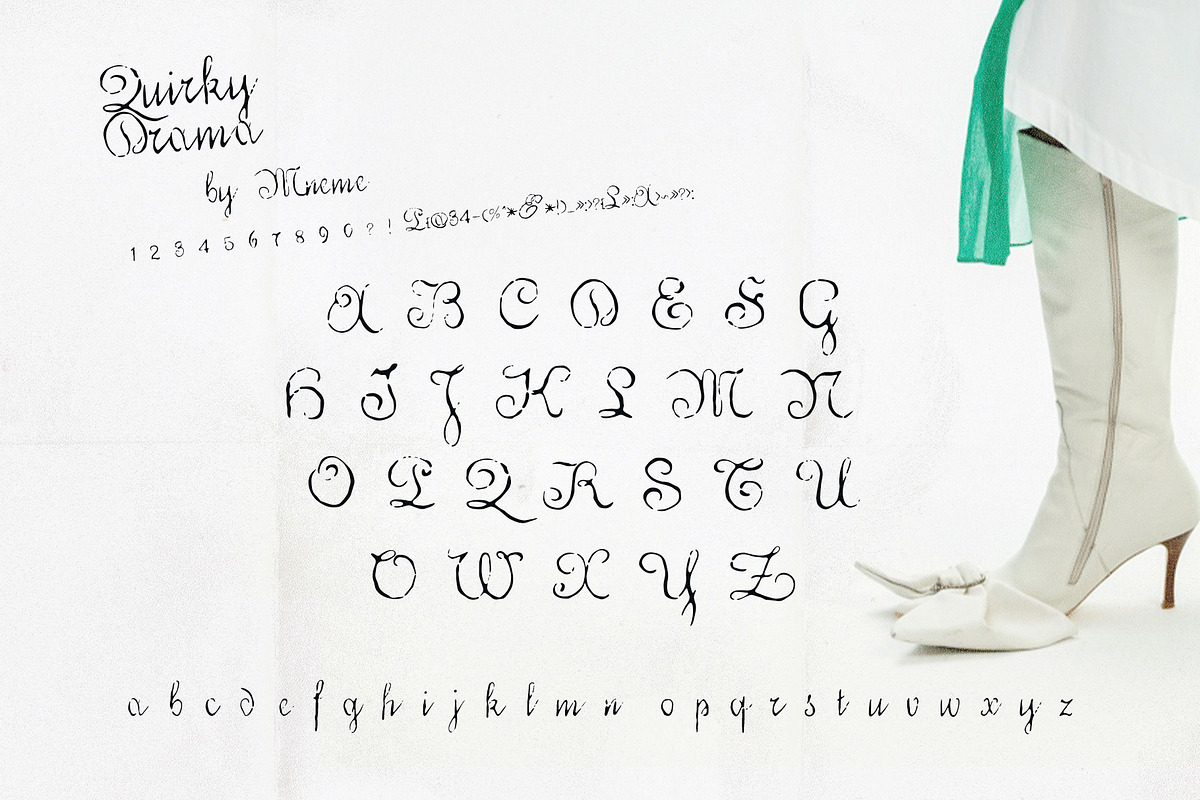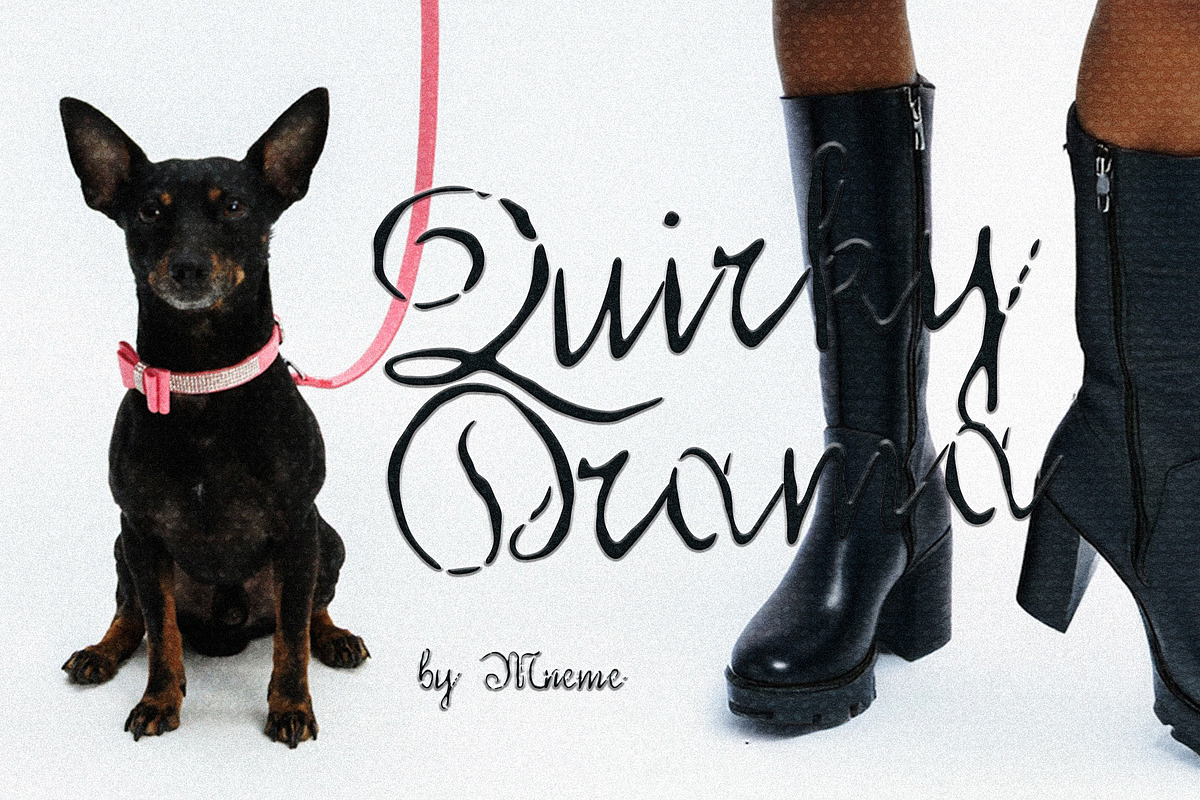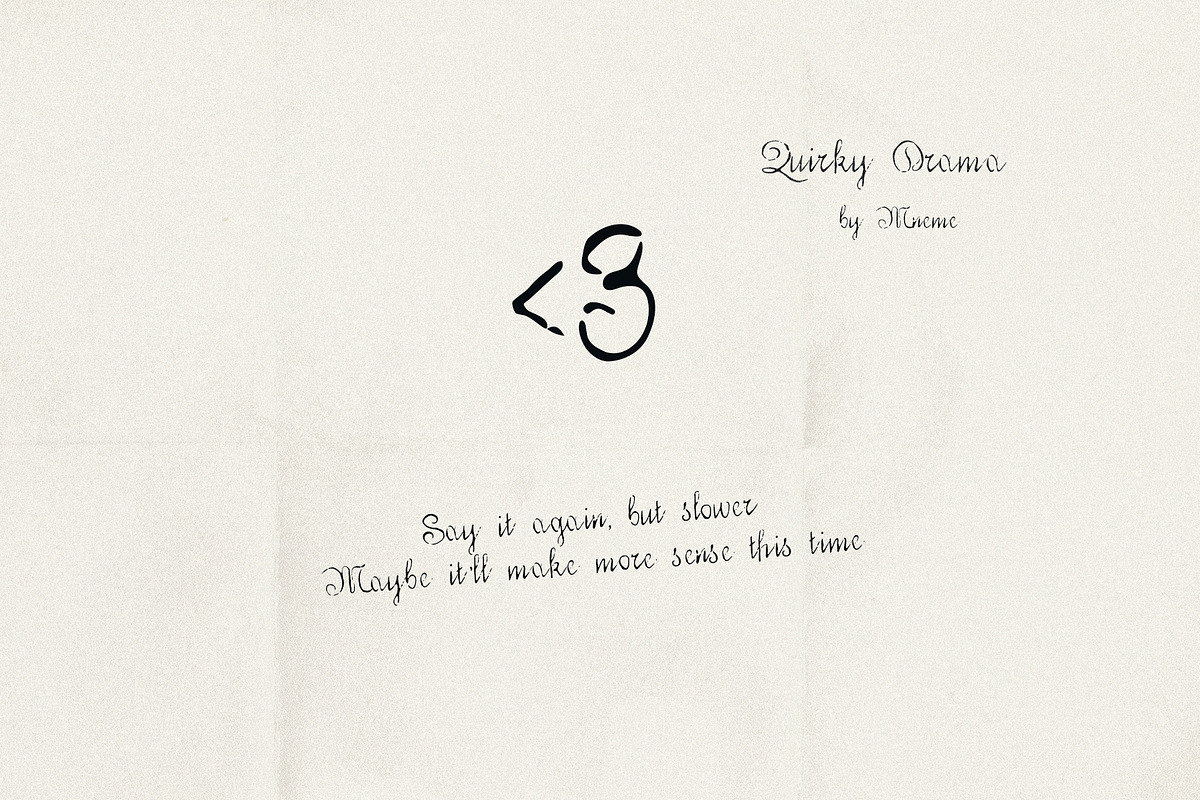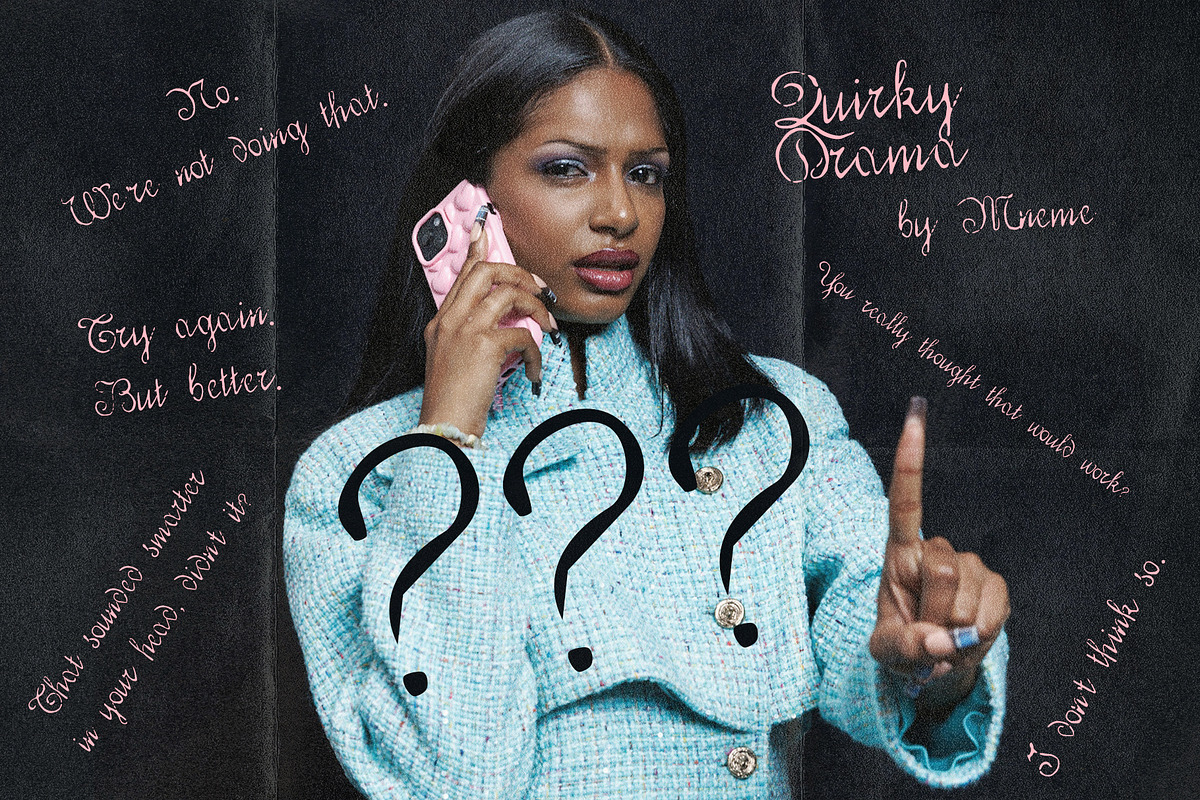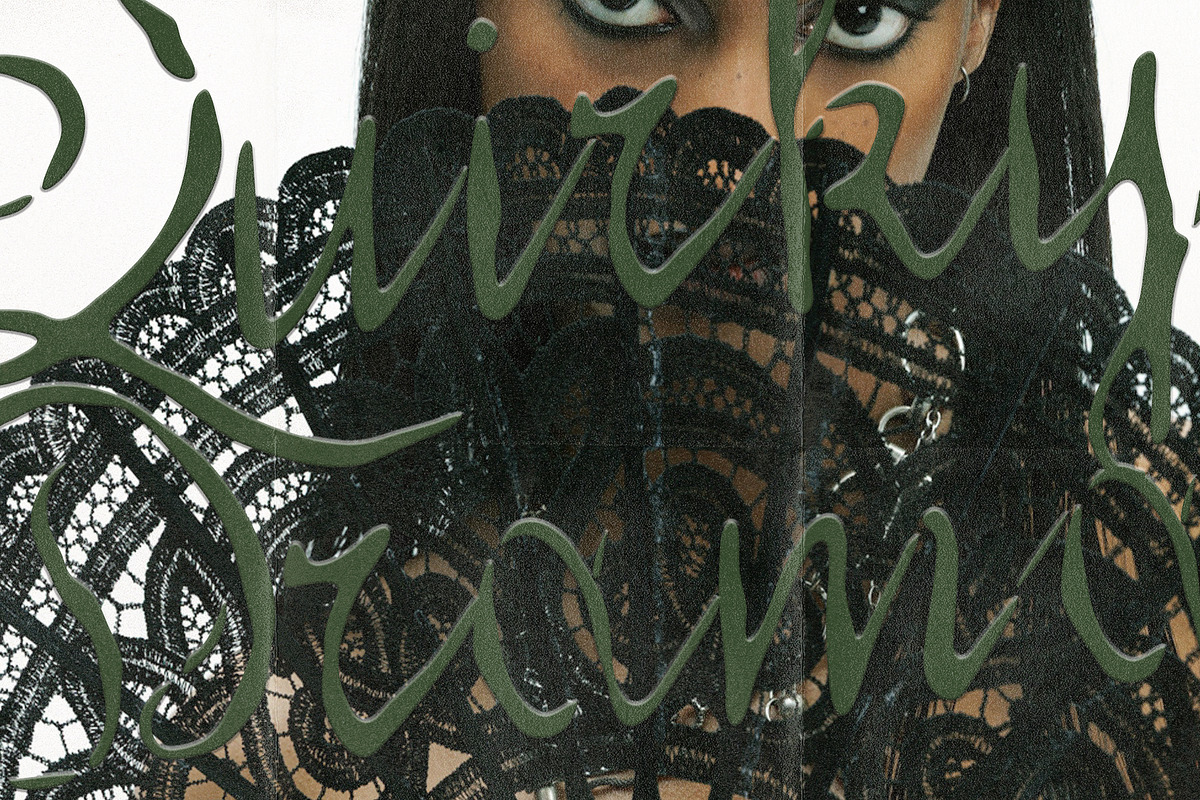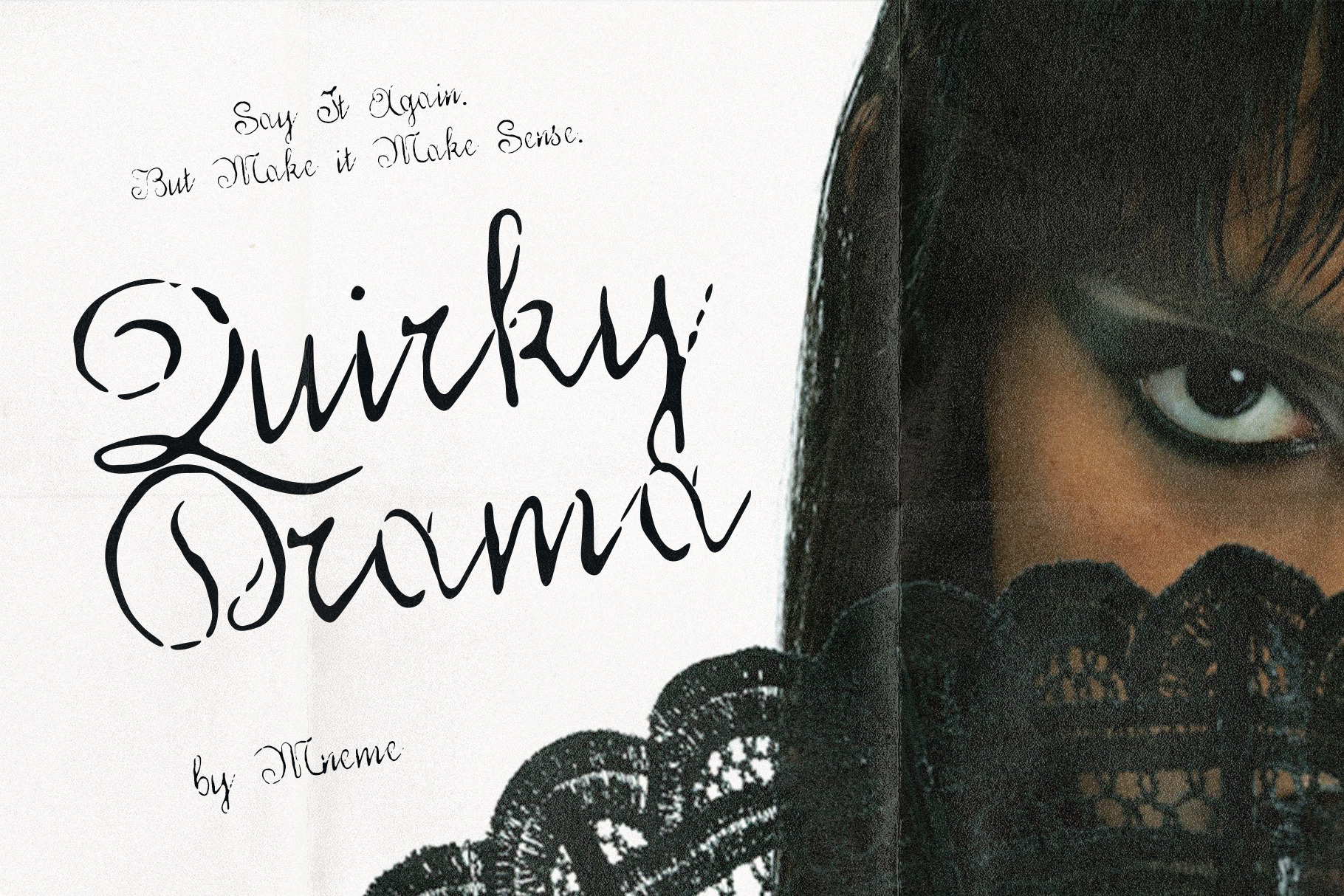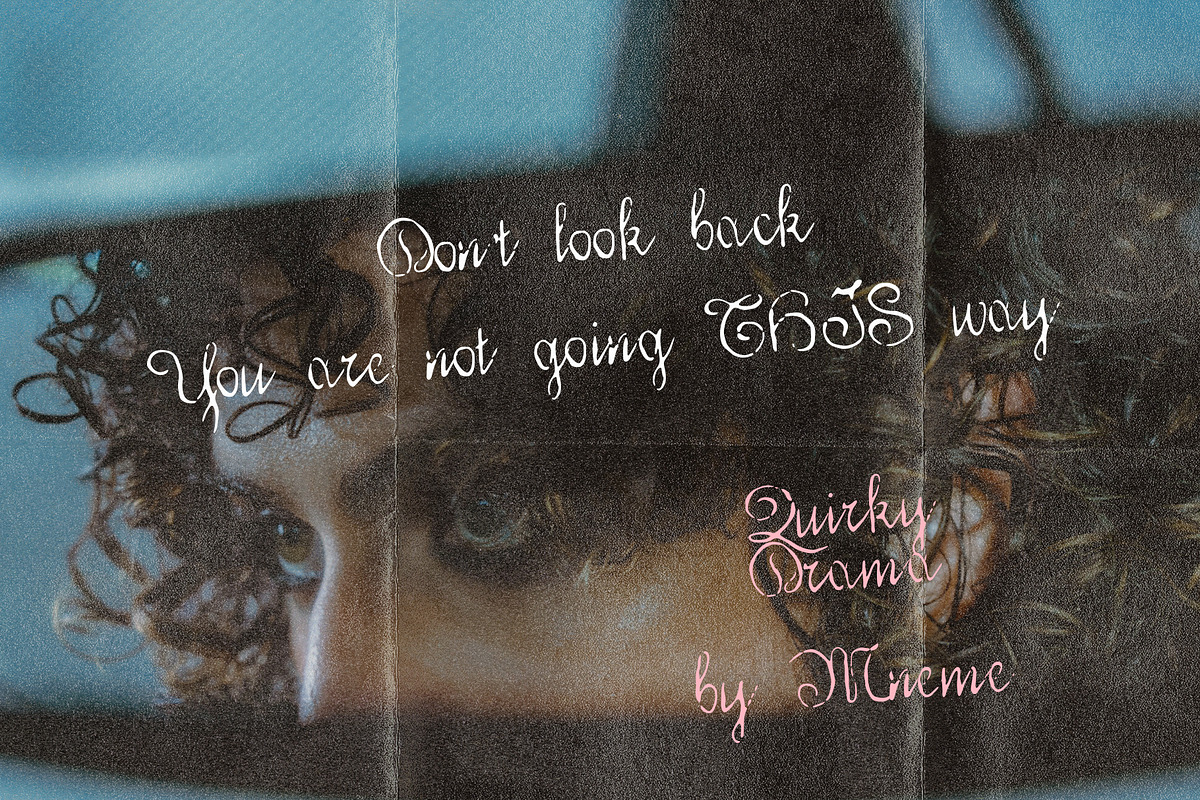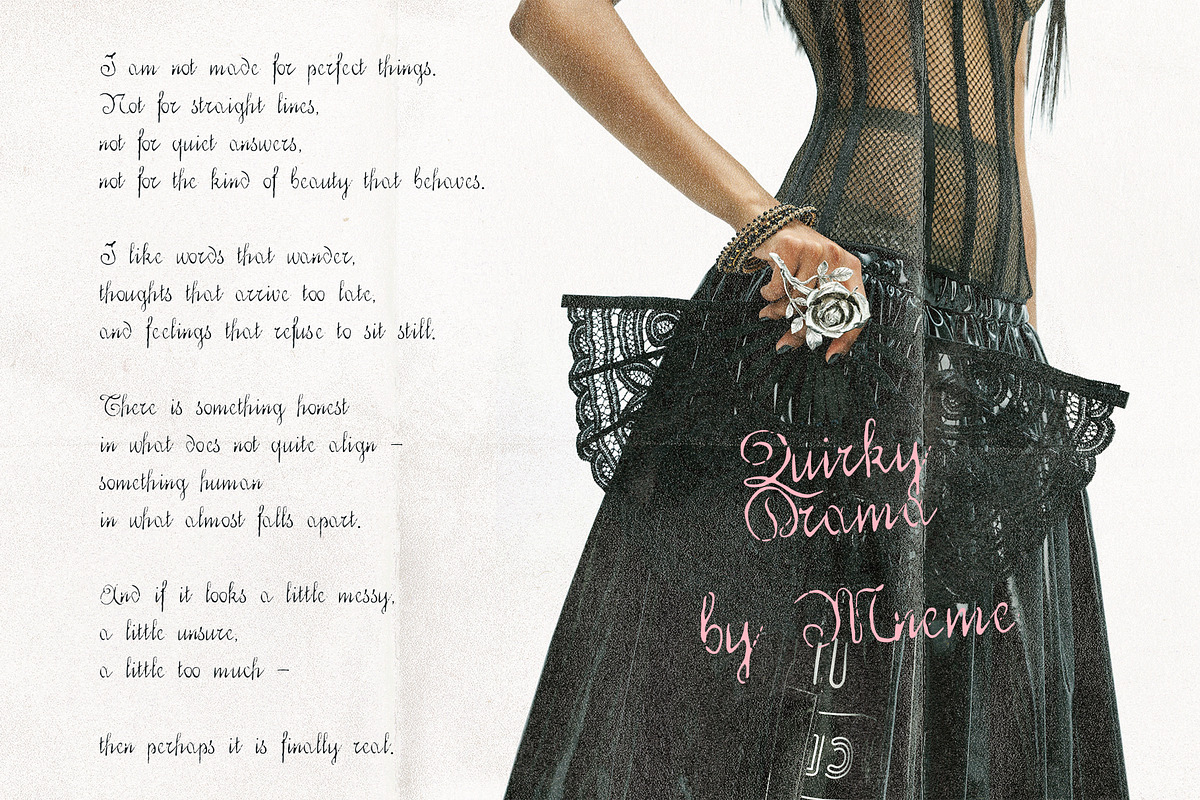
Quirky Drama: Expressive Script Font
Quirky Drama is a modern script font with a distinctive, hand-drawn feel. Designed to embrace imperfection, it features uneven strokes, organic rhythm, and expressive letterforms that feel alive and personal.
This font works beautifully for projects that need a human touch with a bit of edge — from bold editorial layouts to branding, social media, and creative storytelling.
- Branding & logos
- Editorial design
- Social media graphics
- Posters & campaigns
- Fashion & lifestyle projects
- Invitations with character
- Natural stylistic feel